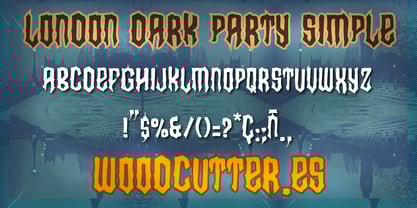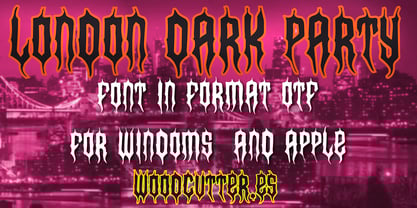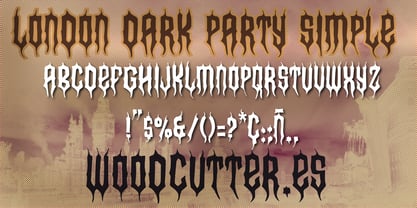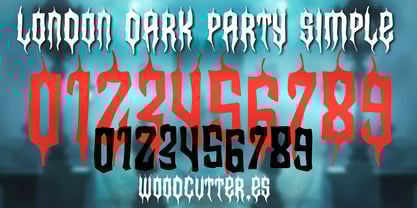
London Dark Party
by Woodcutter
The London Dark Party Font Family was designed by Jordi Manero and published by Woodcutter. London Dark Party contains 2 styles and family package options. More about this family
London Dark Party is an all-caps gothic-style typeface, inspired by Victorian horror aesthetics and decadent masquerade balls in fog-shrouded mansions. This is a dramatic, bold, and expressive font—ideal for titles that demand strong visual impact and a sinister, ceremonial, or supernatural tone.
The font family consists of two distinct styles:
London Dark Party, features highly elongated, sharp, and spiky letters that evoke a sense of tension and drama. Its vertical and stylized forms resemble old stained glass or ritualistic calligraphy. It's perfect for horror posters, dark album covers, or any design with a gothic and ghostly vibe.
London Dark Party Simple, on the other hand, tones down the exaggeration. The letterforms retain the gothic spirit but have more solid structures and restrained proportions, making them more readable without losing their eerie character.
Both styles work well independently or together, providing designers with a flexible toolkit for crafting dark, mysterious, and elegant visuals. This font isn’t subtle—it’s made to stand out wherever bold and haunting typographic presence is needed.